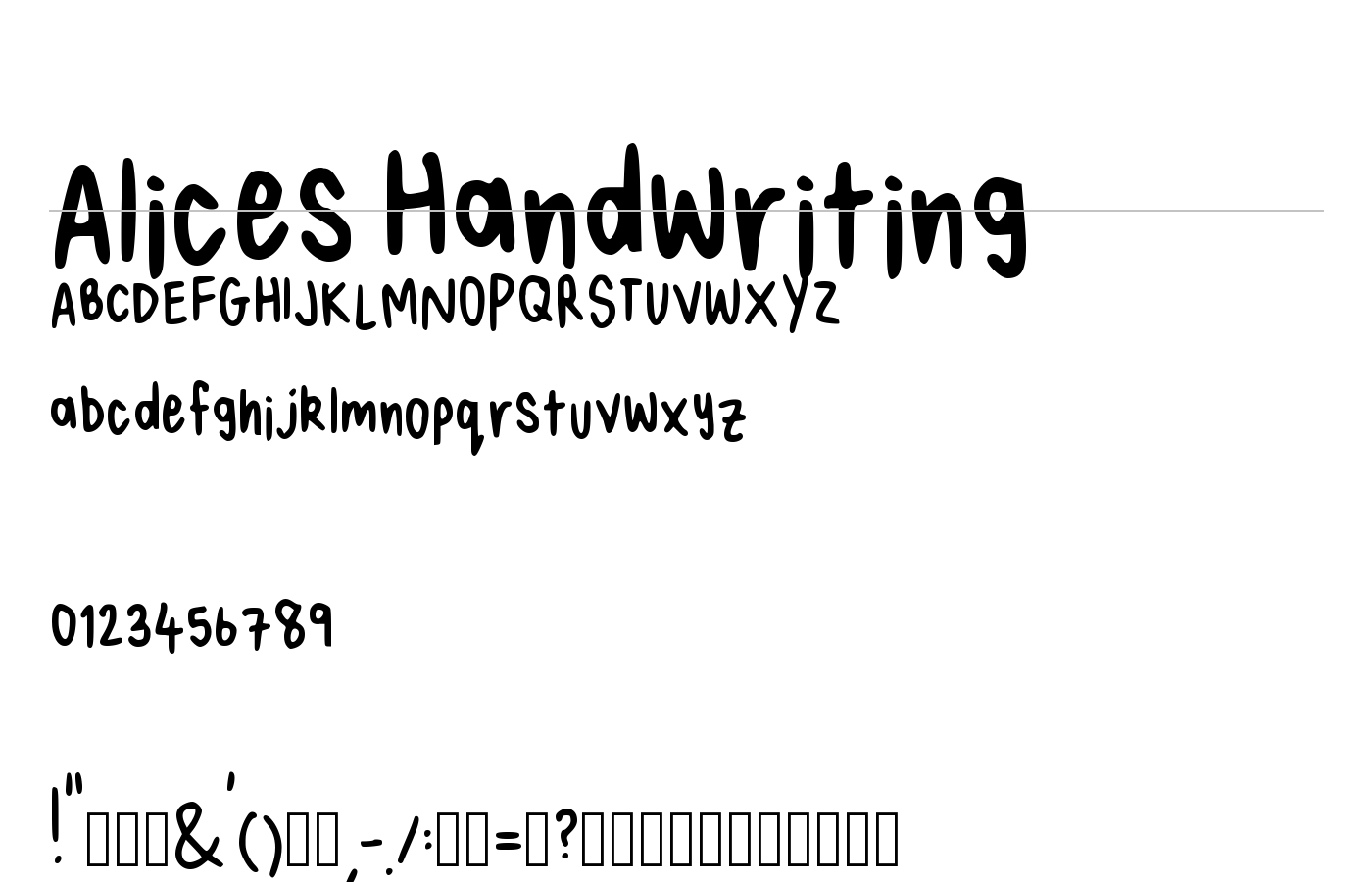
Alices Handwriting is a playful, casual sans serif font that mimics natural, hand-drawn letters with a friendly and approachable vibe. Its uneven strokes and tall, narrow letterforms give it a lively, personal feel, perfect for informal designs, children’s materials, or creative branding that seeks warmth and personality. This font works best for headlines, logos, and projects where a hand-crafted, cheerful touch is desired rather than formal or highly polished text.
Alices Handwriting Font
About Alices Handwriting Font